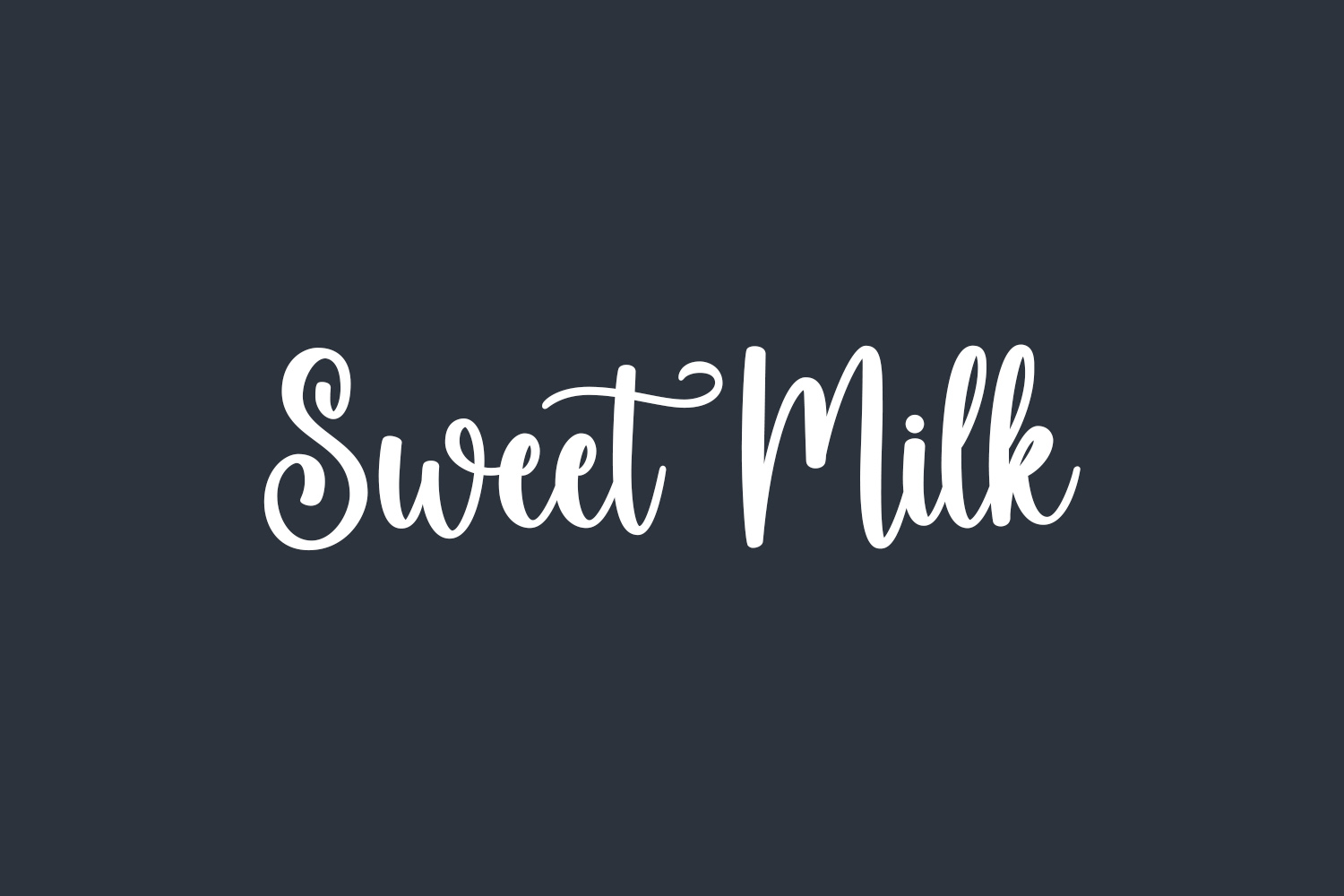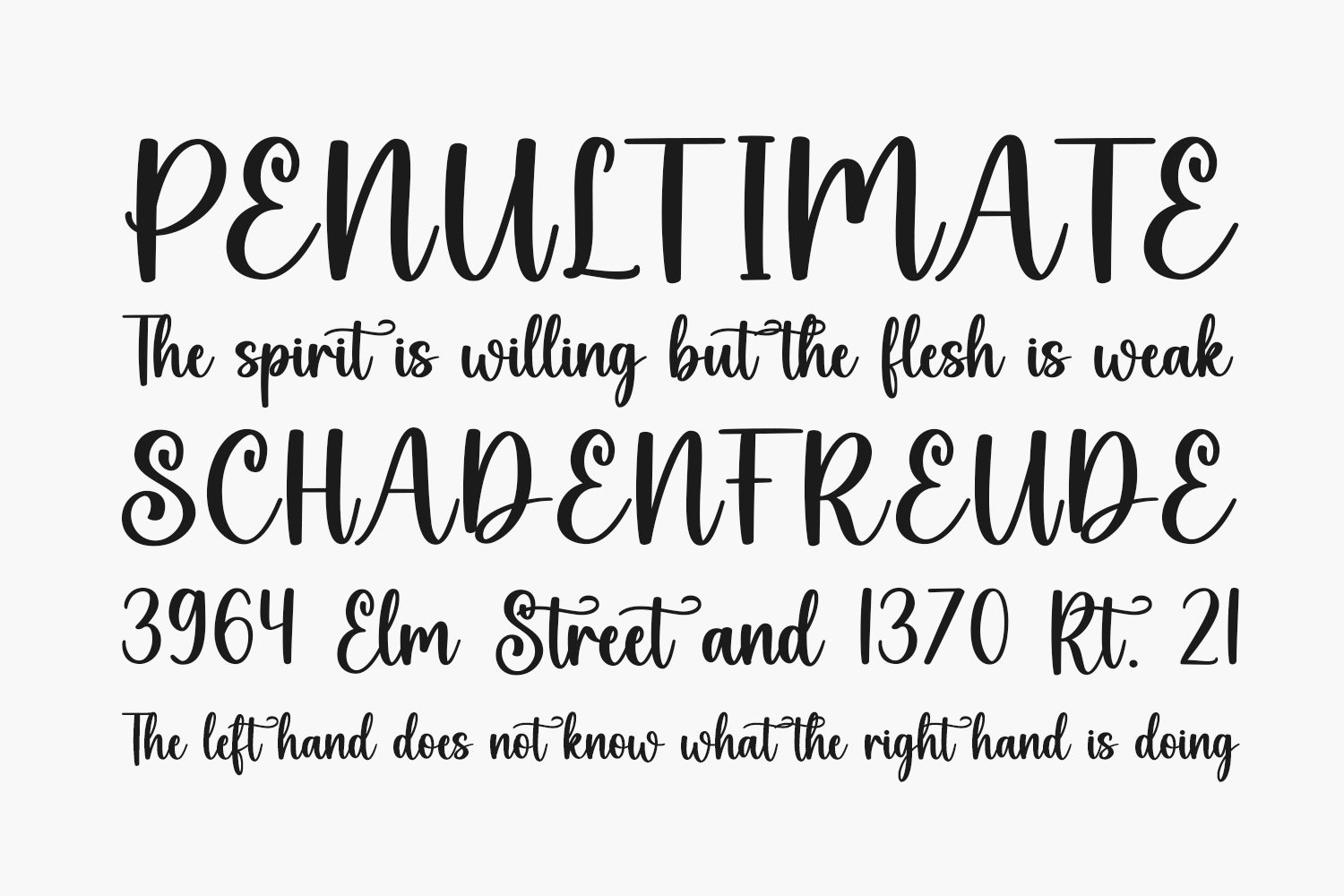
Sweet Milk Free Font is a delicate and elegant flowing handwritten font that exudes class and grace. Its smooth lines and elegant curves make it the perfect choice for wedding invitations, elegant packaging, or any design project that requires a touch of luxury. The font’s natural handwriting style gives it a personal and intimate feel, making it perfect for expressing heartfelt sentiments. The font’s fluidity also gives it a sense of movement, making it perfect for designs that need to convey a sense of fluidity and grace. Sweet Milk Free Font is a font that will elevate any design and make it truly special.